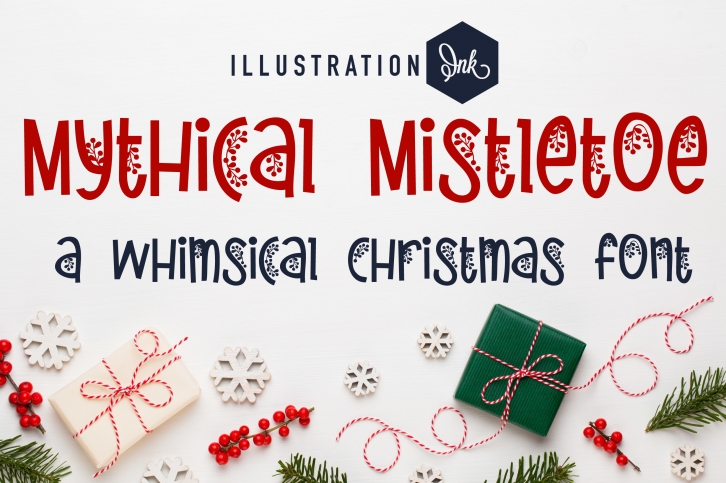
Mythical Mistletoe is a cute and adorable handwritten decorative font that features little berries and leaves. Add it confidently to your holiday projects and you will love the results!